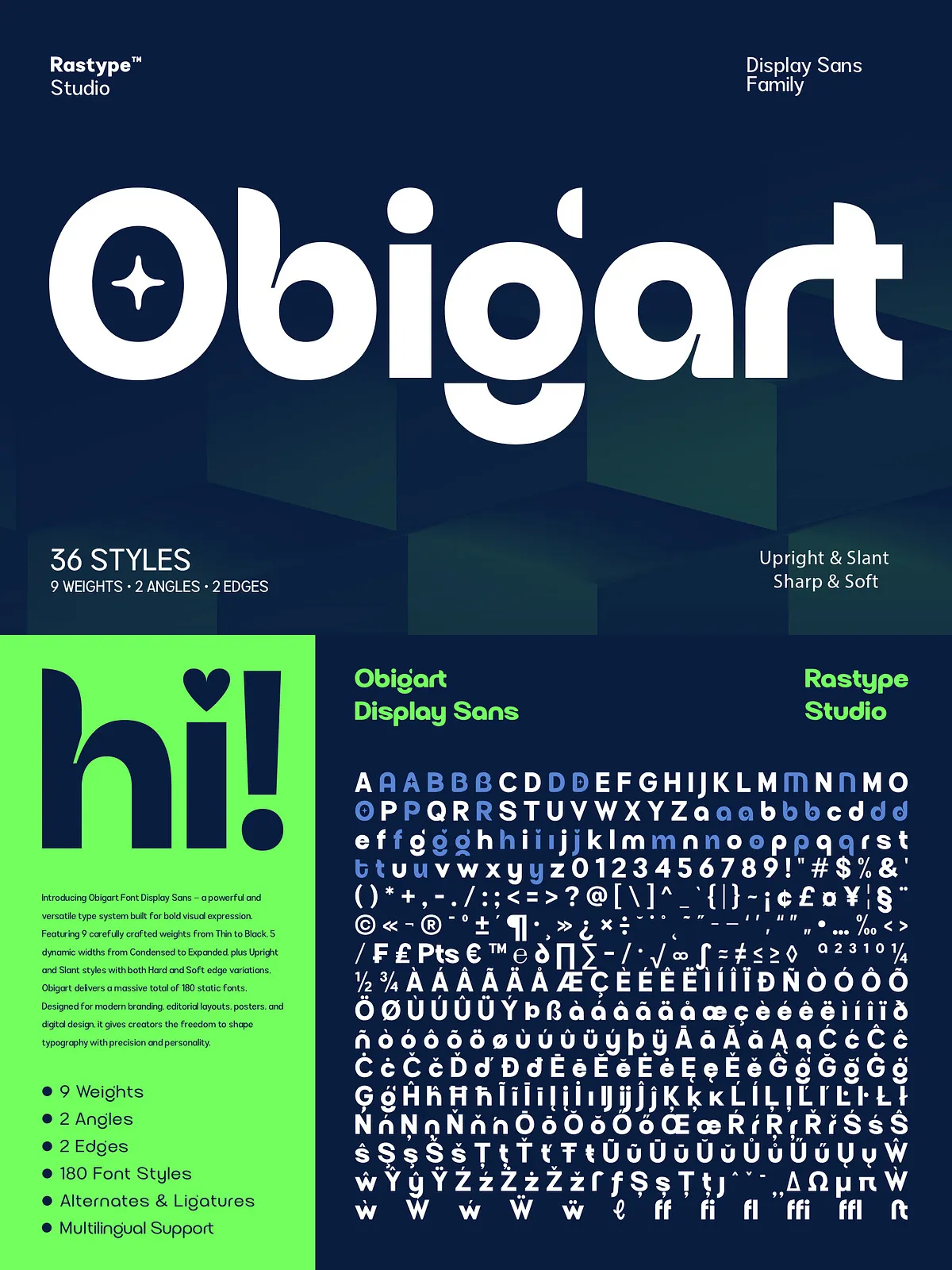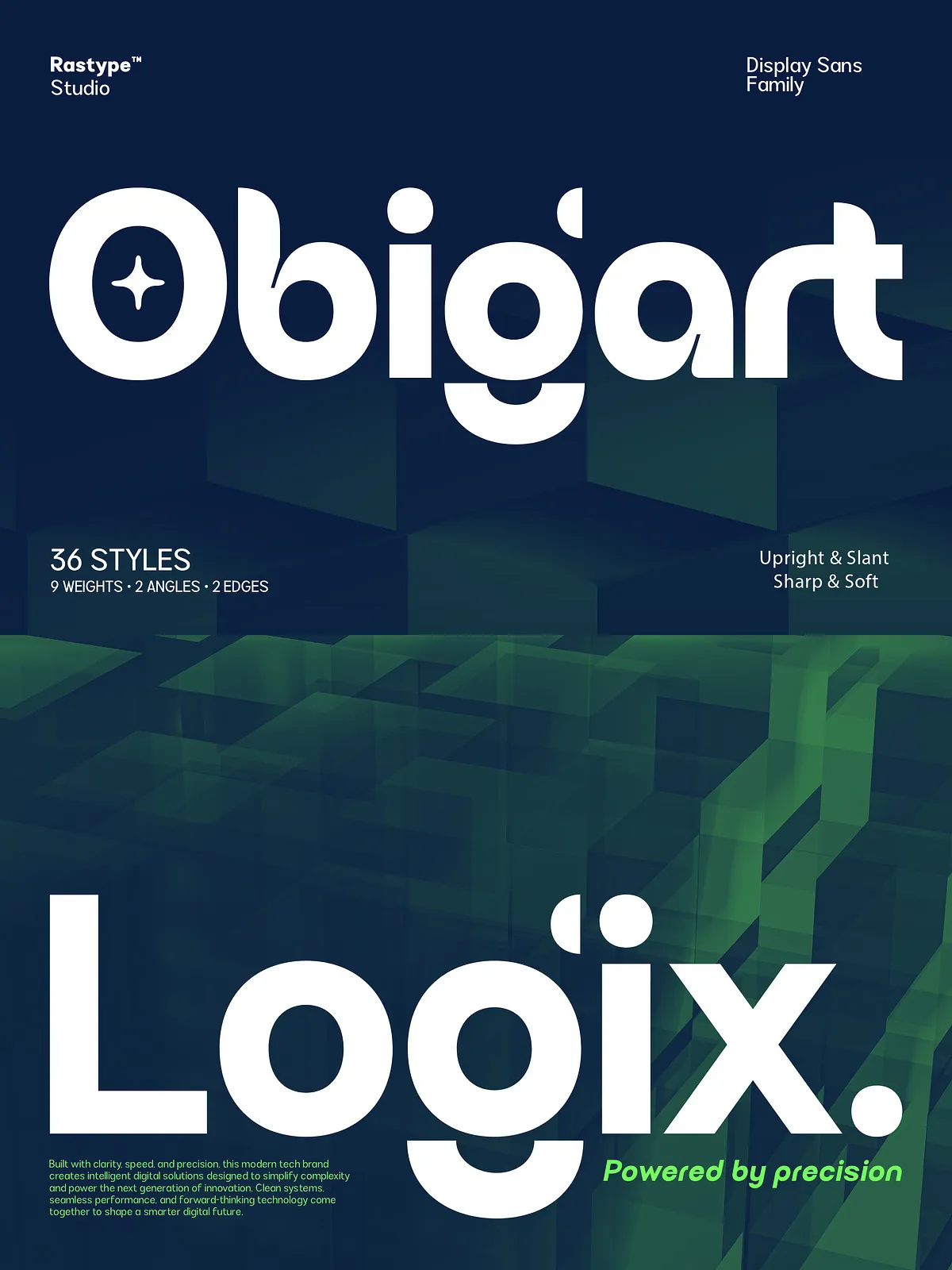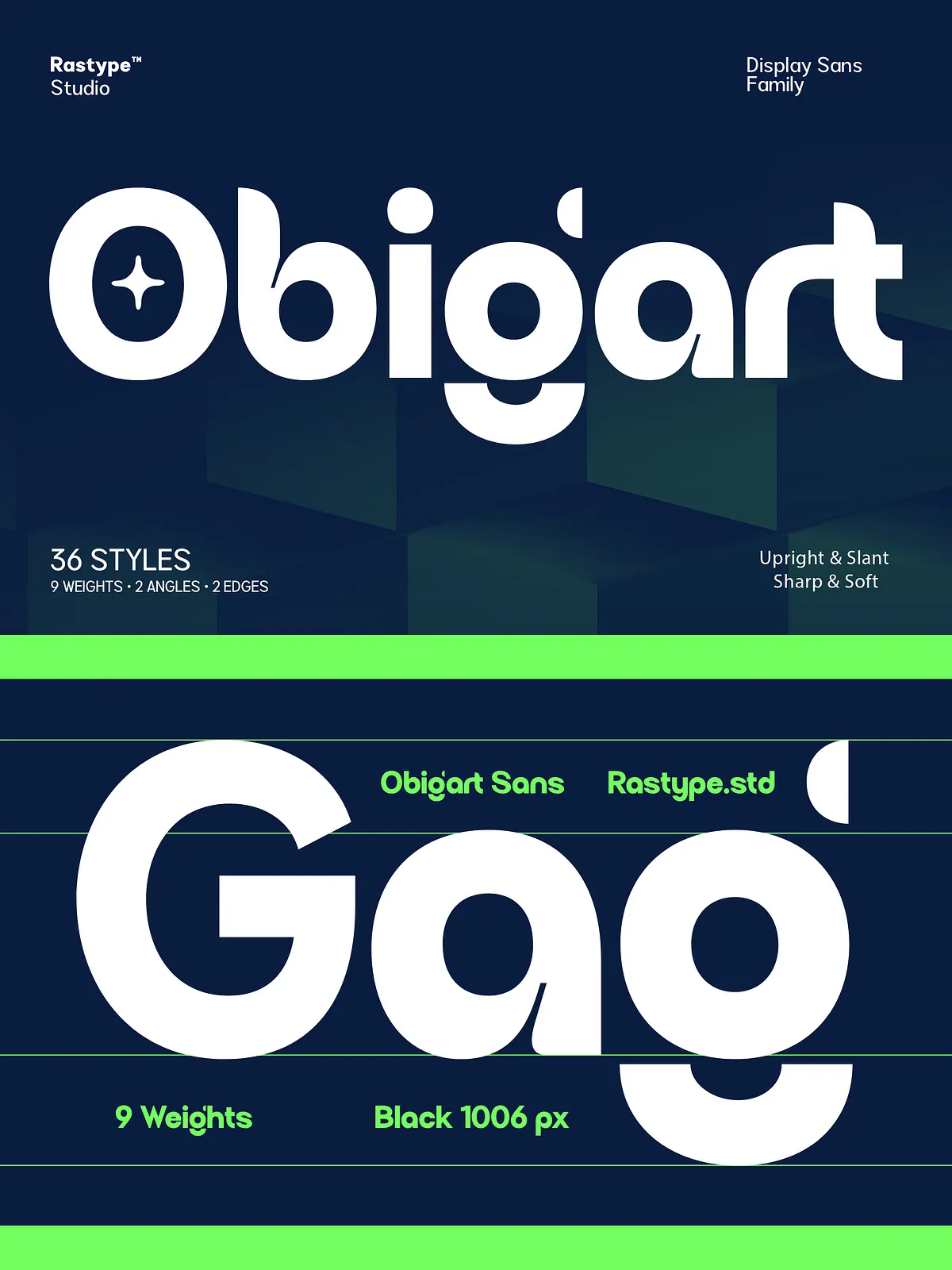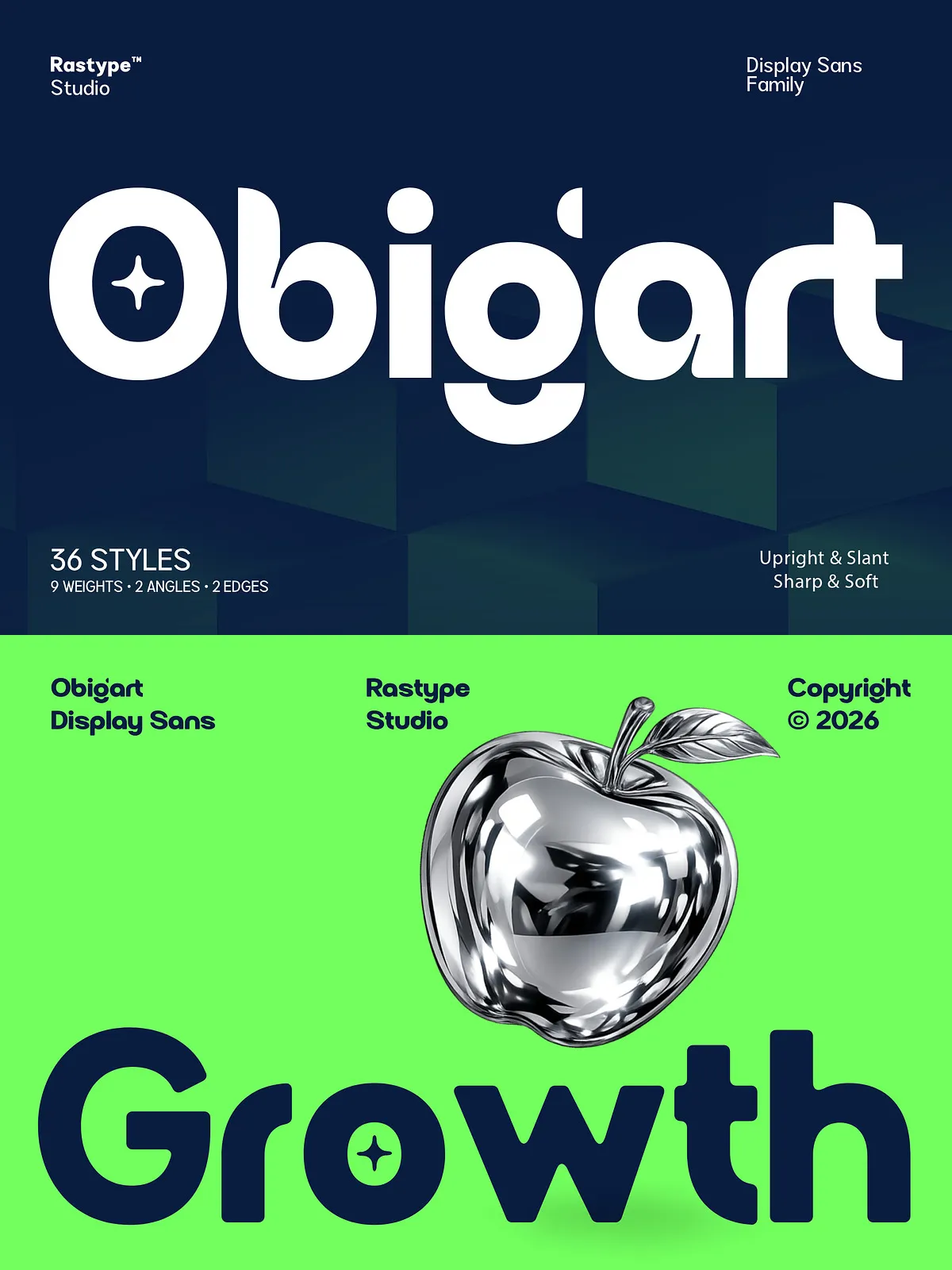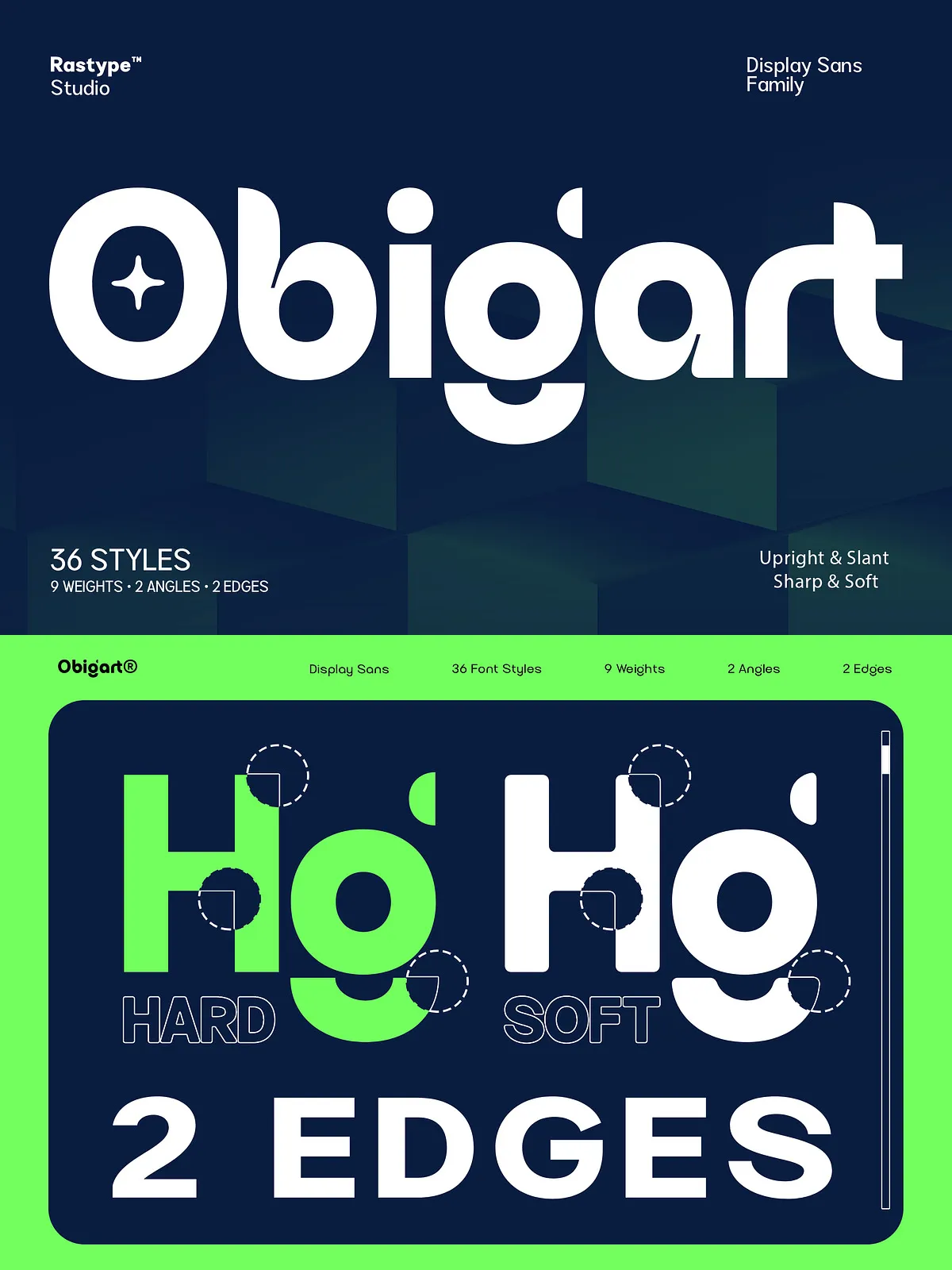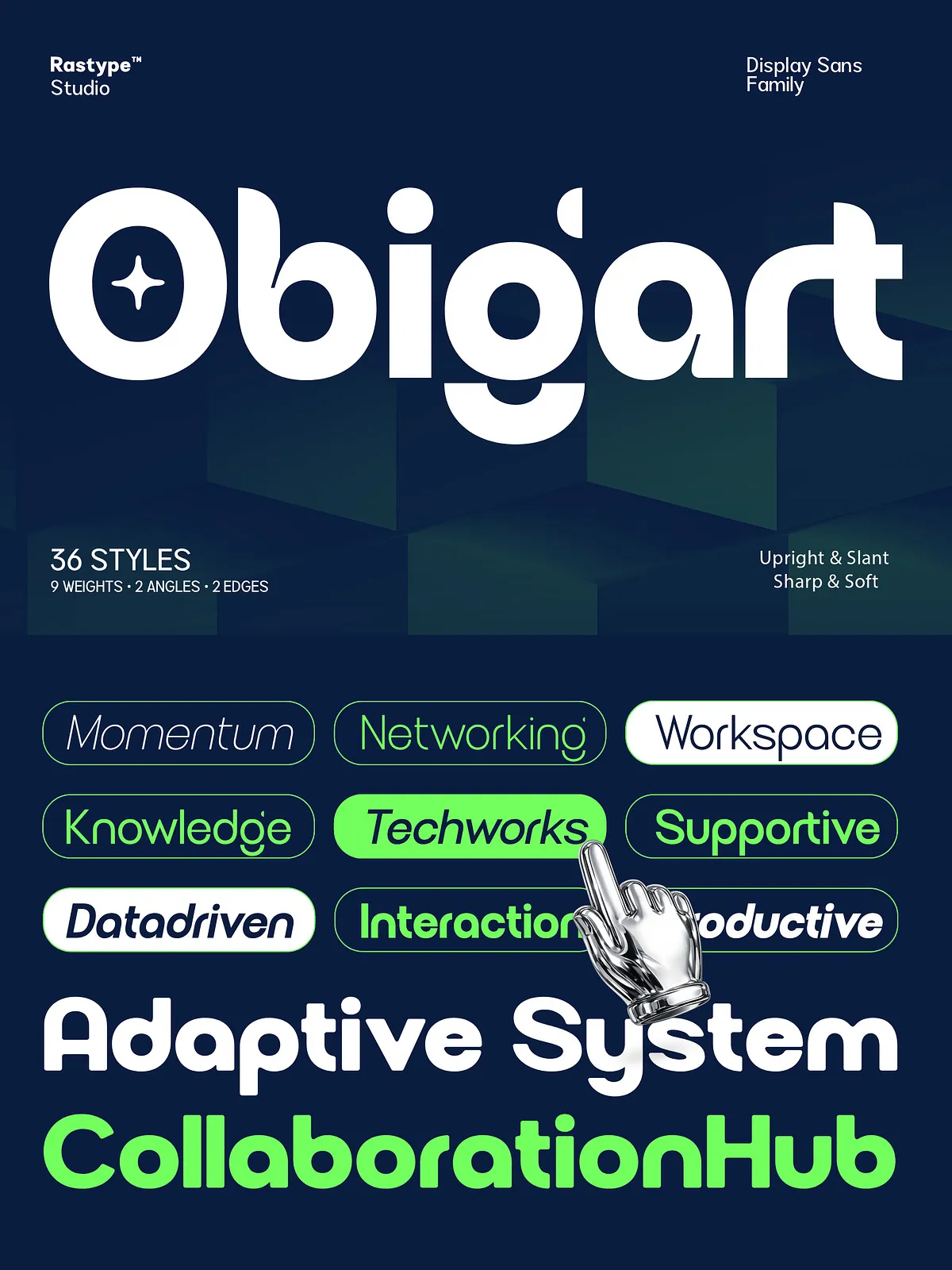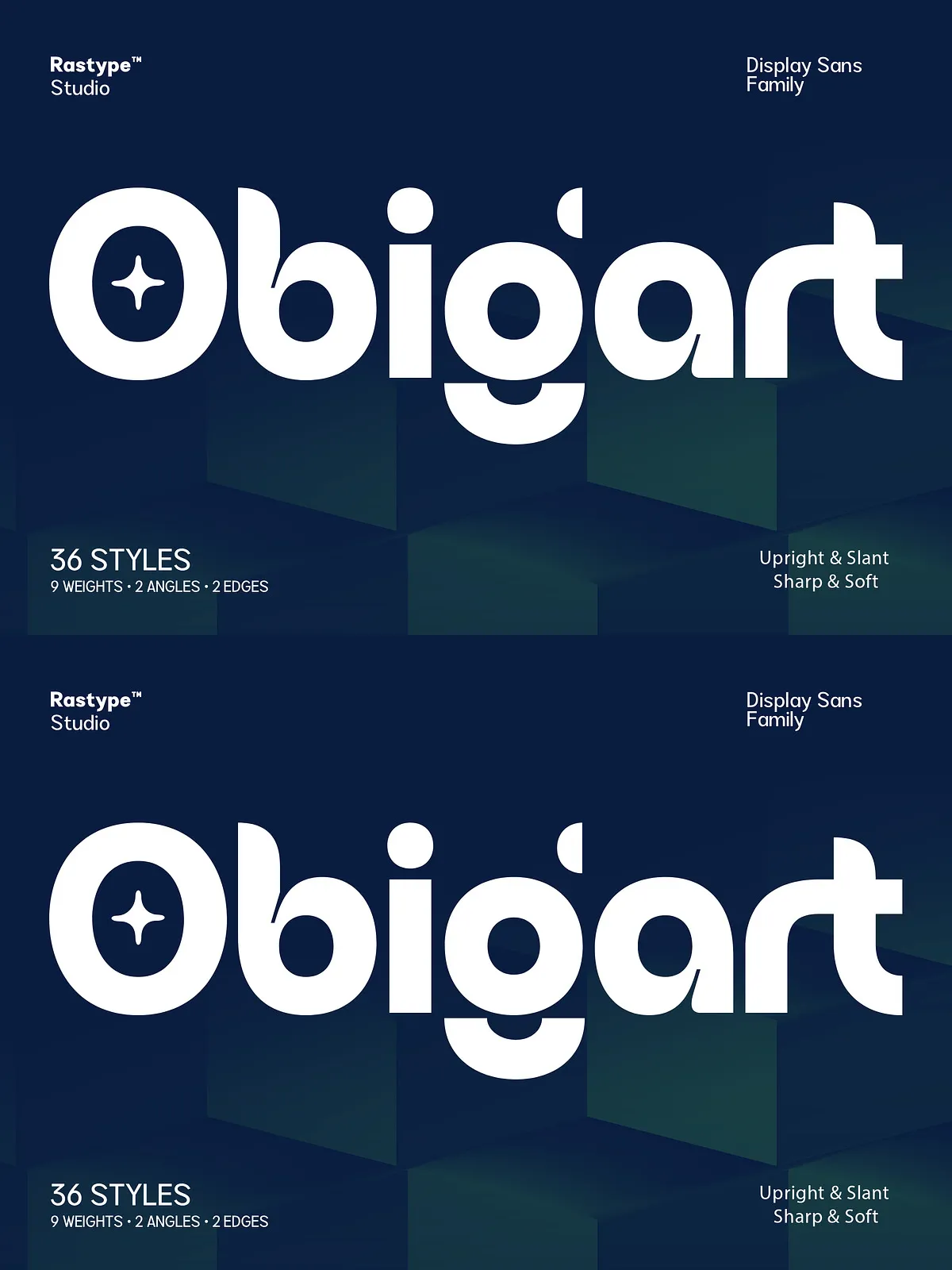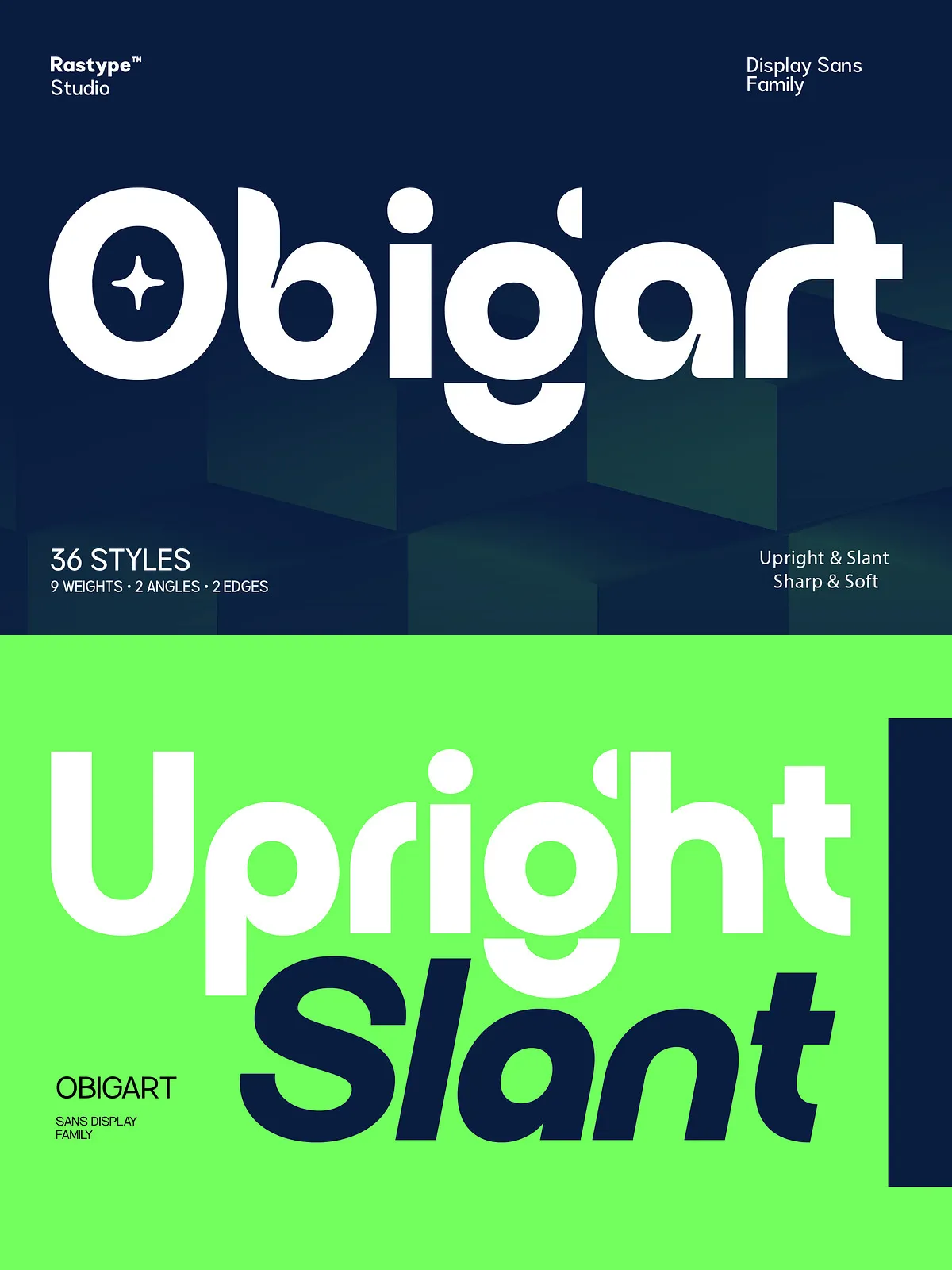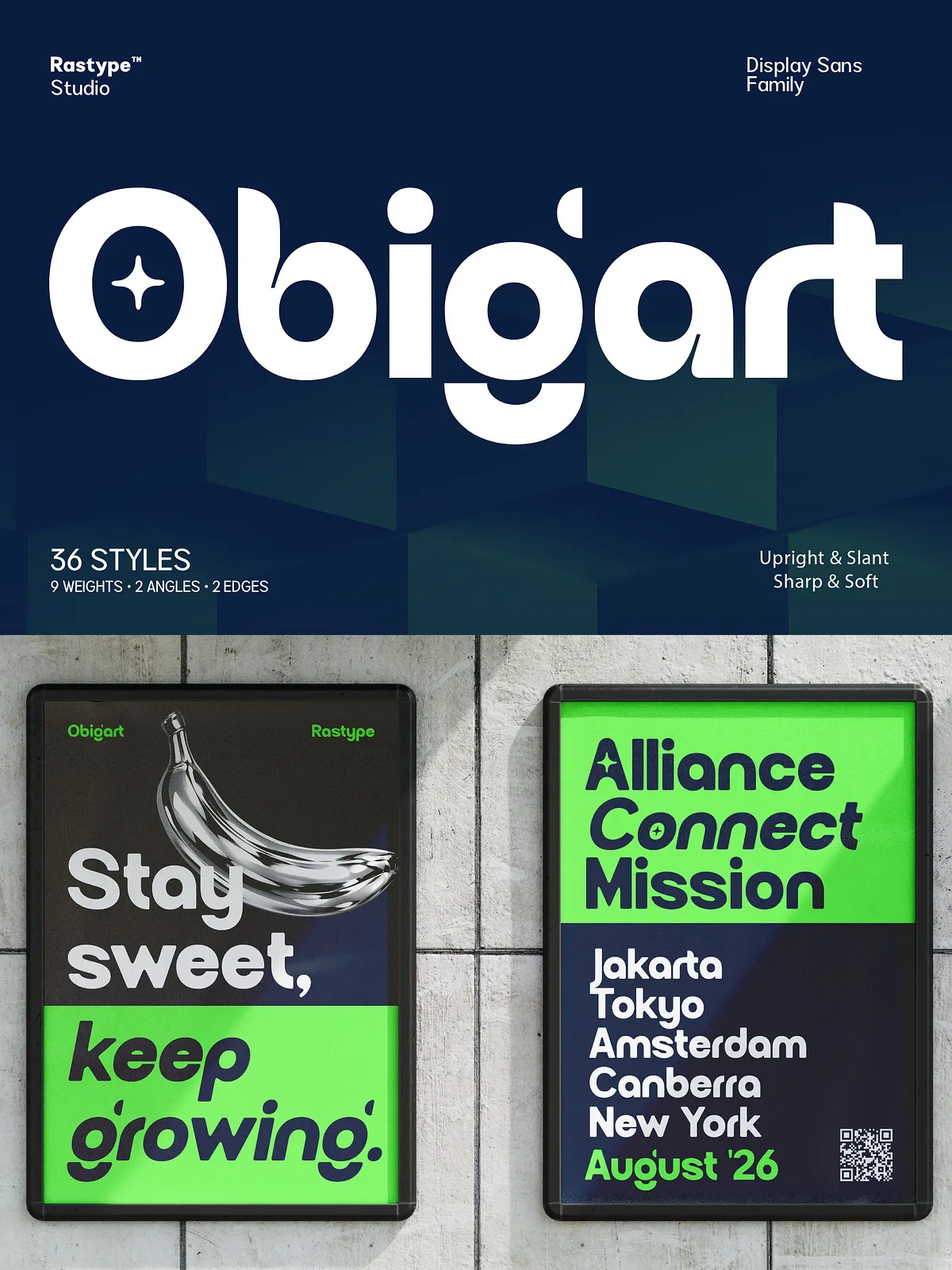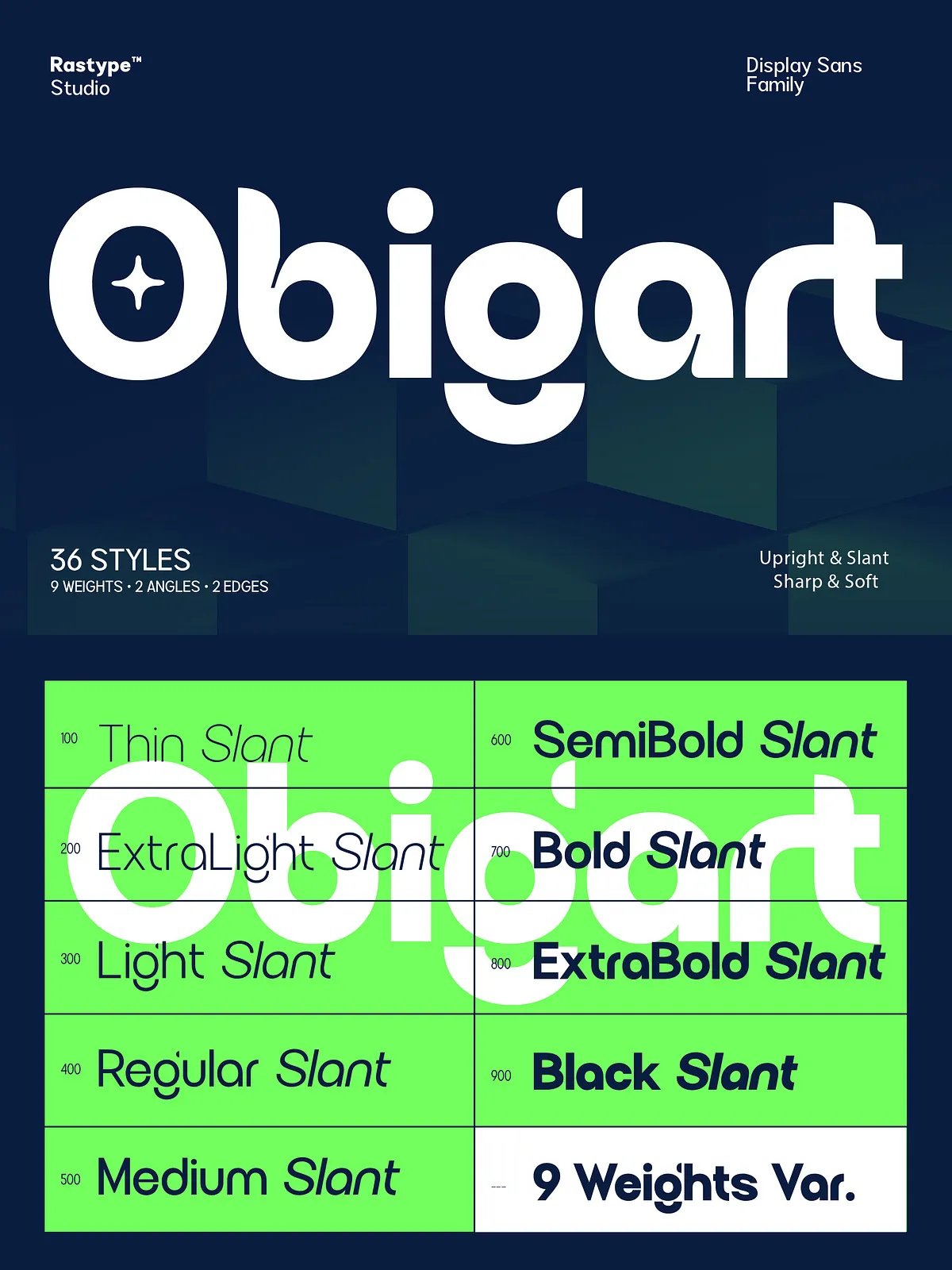
Obigart – Family Font
Obigart delivers a confident, modern voice through smooth geometric curves and robust proportions. Designed to perform across large-scale headlines and tight, attention-grabbing layouts, Obigart combines minimalism with friendly character details. The family includes multiple weights, upright and slanted variants, and sharp and soft edge options so designers can craft consistent systems that energize brands, campaigns, and products.
Geometric Construction with Human Touch
Obigart balances a precise geometric skeleton with subtle humanist details. The result reads as contemporary and approachable: shapes feel engineered for clarity, while terminals and counters include small idiosyncrasies that avoid cold uniformity.
Multiple Weights and Styles
The family provides a broad weight range from light to extra bold, plus upright and slanted (italic) versions. Designers gain flexible typographic hierarchy and the ability to maintain voice across headlines, subheads, and display treatments.
Sharp and Soft Edge Variants
Choose between sharp-edge styles for a cutting, futuristic aesthetic or softened-edge cuts for warmer, friendlier applications. Both variants maintain consistent metrics so switching between them stays effortless during layout and branding workflows.
Outstanding Legibility and Presence
Obigart preserves excellent readability at large sizes while retaining strong recognition in shortened, bold headlines. Letterforms maintain generous counters and clear apertures to maximize clarity in print and digital contexts.
Recommended Uses
Branding and Identity
Obigart acts as a commanding primary or secondary brand typeface. Use heavier weights for wordmarks and shorter logotypes, and lighter weights for supporting brand materials to create a coherent, versatile identity system.
Advertising and Posters
The family performs strongly in high-impact advertising and poster design. Its geometric bolds cut through visual noise and deliver instant legibility in outdoor, transit, and digital ad placements.
Packaging and Product Design
Obigart adapts to product labels and packaging through its weight and edge choices. Soft-edge variants pair well with organic or craft products, while sharp-edge styles emphasize premium, tech, or industrial positioning.
Editorial and Digital Layouts
Use Obigart for striking magazine covers, section headers, and hero web headlines. Its slanted styles provide energetic emphasis without sacrificing typographic control across responsive breakpoints.
Design and Pairing Tips
Pair with a Neutral Sans or a Reliable Serif
Complement Obigart with a neutral sans for body copy when you want a unified, minimalist feel. For more contrast and editorial flair, pair Obigart with a readable serif for long-form content to create a clear typographic hierarchy.
Use Edge Variants Strategically
Reserve sharp-edge Obigart for technology, architecture, or luxury contexts where precision amplifies the message. Opt for soft-edge versions on consumer-facing products and lifestyle brands to communicate warmth and accessibility.
Color and Scale
Obigart thrives in high-contrast color schemes and bold palettes. Scale the heavier weights for hero headlines and reduce tracking slightly for compact display use. Lighter weights and slanted styles excel in secondary headings and pull quotes.
Technical Details
• Styles: Multiple weights, upright and slanted styles, sharp-edge and soft-edge variants
Why Choose Obigart
Obigart empowers designers to make a bold statement without sacrificing control. Its geometric foundation supplies clarity and modernity, while character details and edge options add personality and versatility. This family actively solves common design challenges: establishing hierarchy, maintaining brand consistency, and delivering immediate legibility at any scale.
Quick Usage Examples
• Logo: Set primary marks in Obigart Extra Bold (sharp-edge) for maximum presence.
• Campaign: Use Obigart Slanted Bold for dynamic headlines and Obigart Regular for captions.
• Packaging: Apply soft-edge Obigart Medium on labels to communicate approachability while keeping ingredient lists in Obigart Light for readability.